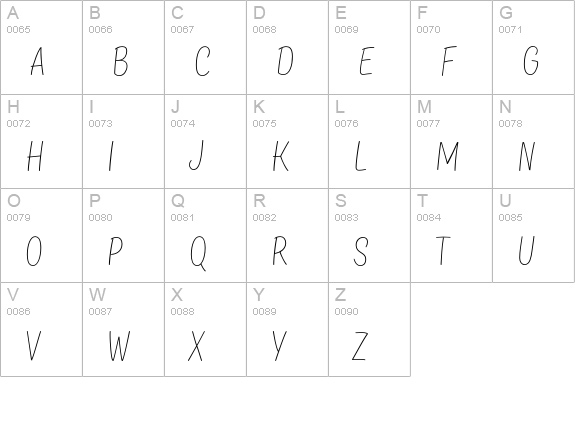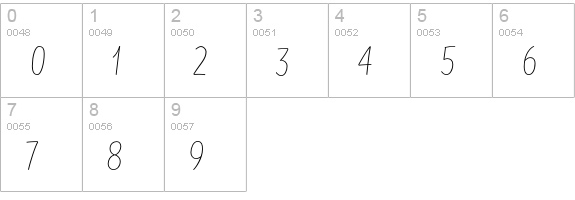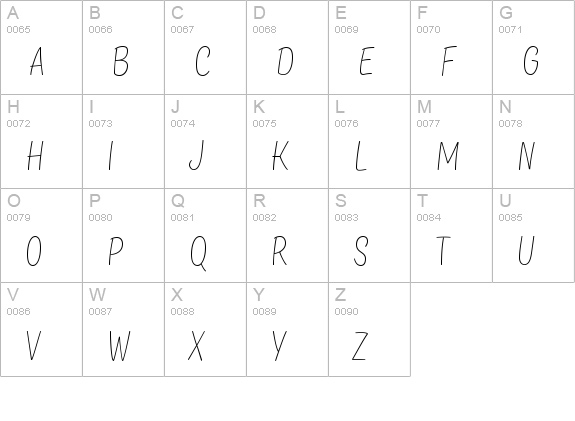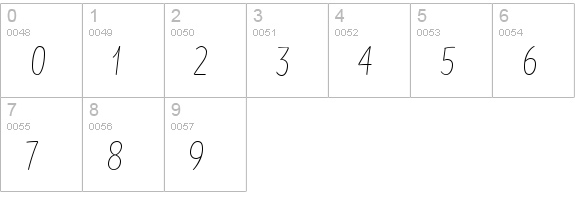
TT Masters Condensed Thin Font Details
TT Masters Condensed Thin is a delicate, low-contrast, condensed-width variant in the TT typeface family \xE2\x80\x94 well suited to fashion editorial, minimal branding, and high-contrast display.
TT Masters Condensed Thin font is a sleek and modern typeface that exudes elegance and sophistication. With its ultra-thin strokes and condensed design, this font is perfect for creating a high-end and refined look in your designs. The sharp, clean lines of TT Masters Condensed Thin make it ideal for use in headlines, branding, and editorial projects where a touch of luxury is desired. Best of all, TT Masters Condensed Thin font is available for free download at FontsMarket.com. Whether you're a professional designer or a hobbyist looking to elevate your projects, this font is a valuable addition to your typographic toolkit. Download TT Masters Condensed Thin today and bring a touch of class to your work with this exquisite typeface.